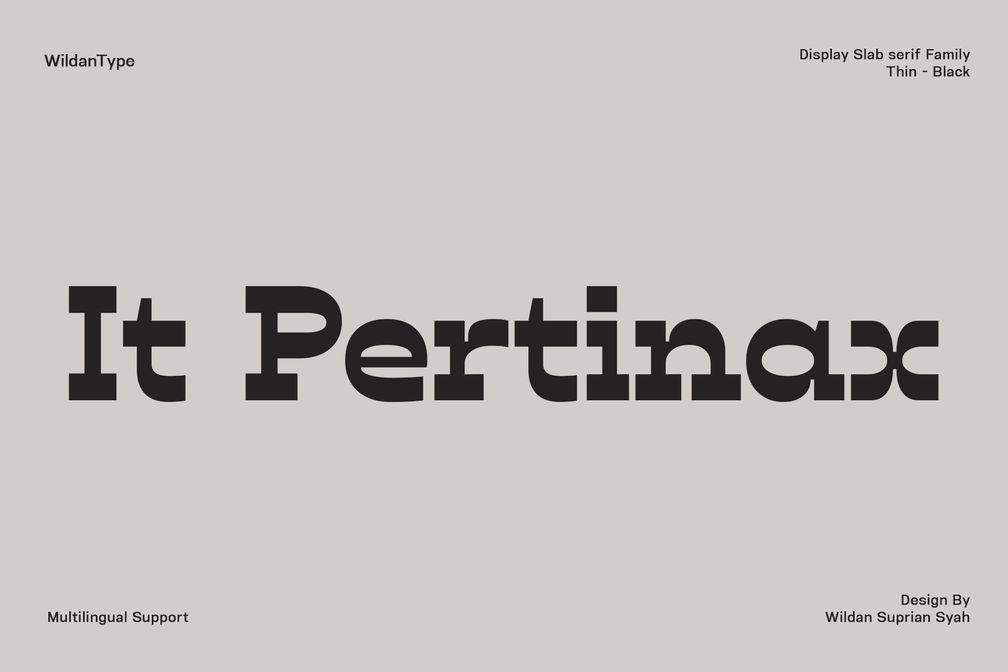
IT Pertinax
IT Pertinax – Modern Slab Westrn
IT Pertinax is font family and striking display slab serif font that features a geometric yet playful design. Its thick, blocky characters make it ideal for impactful headings and signage. The font shown in the image has a retro vibe, giving it a friendly yet authoritative presence. With eight weight styles, IT Pertinax offers flexibility for various creative applications, especially in branding or interior design with a modern and minimalist look.